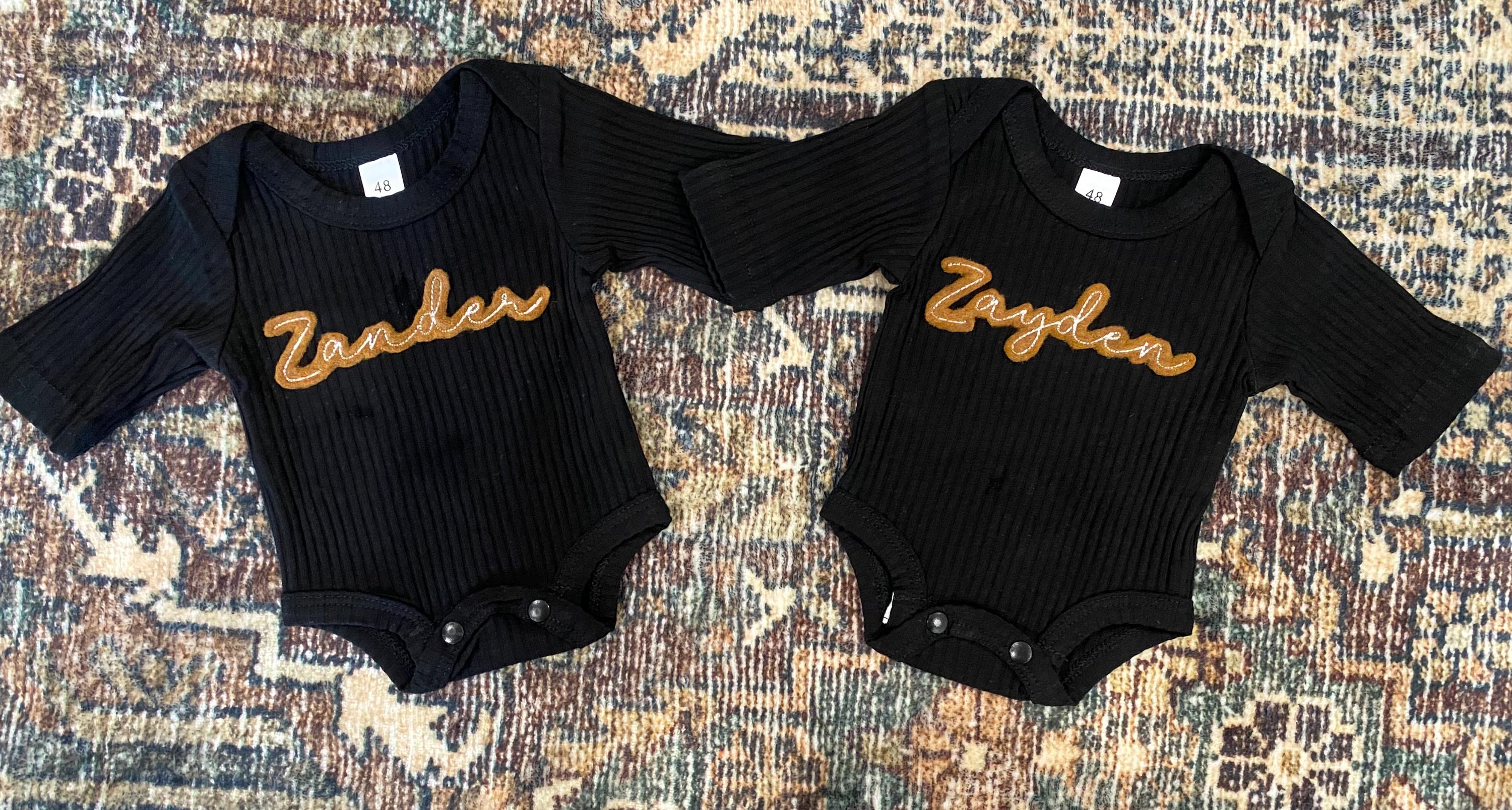
Great font, looks great sewn out.
Stitched out perfectly. Adorable font. Highly recommend.
Very nice. Will work great for my project.
This is a Very cute font design!